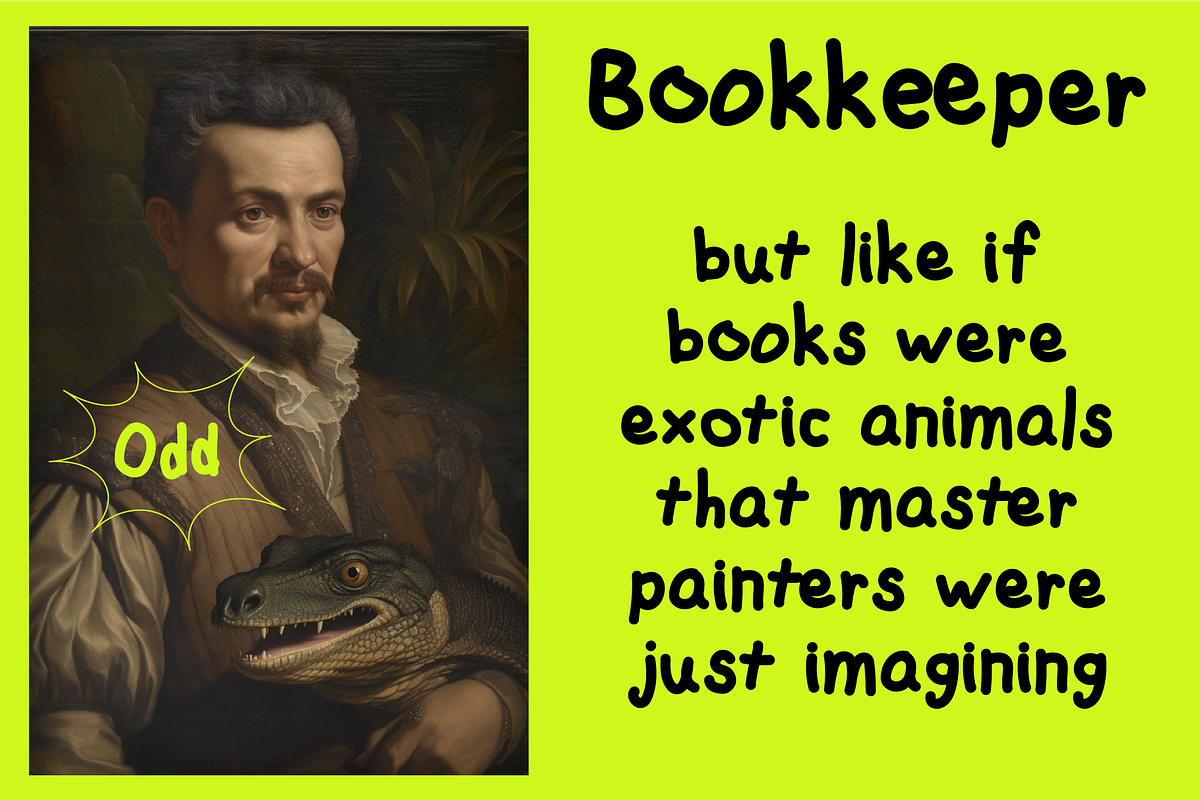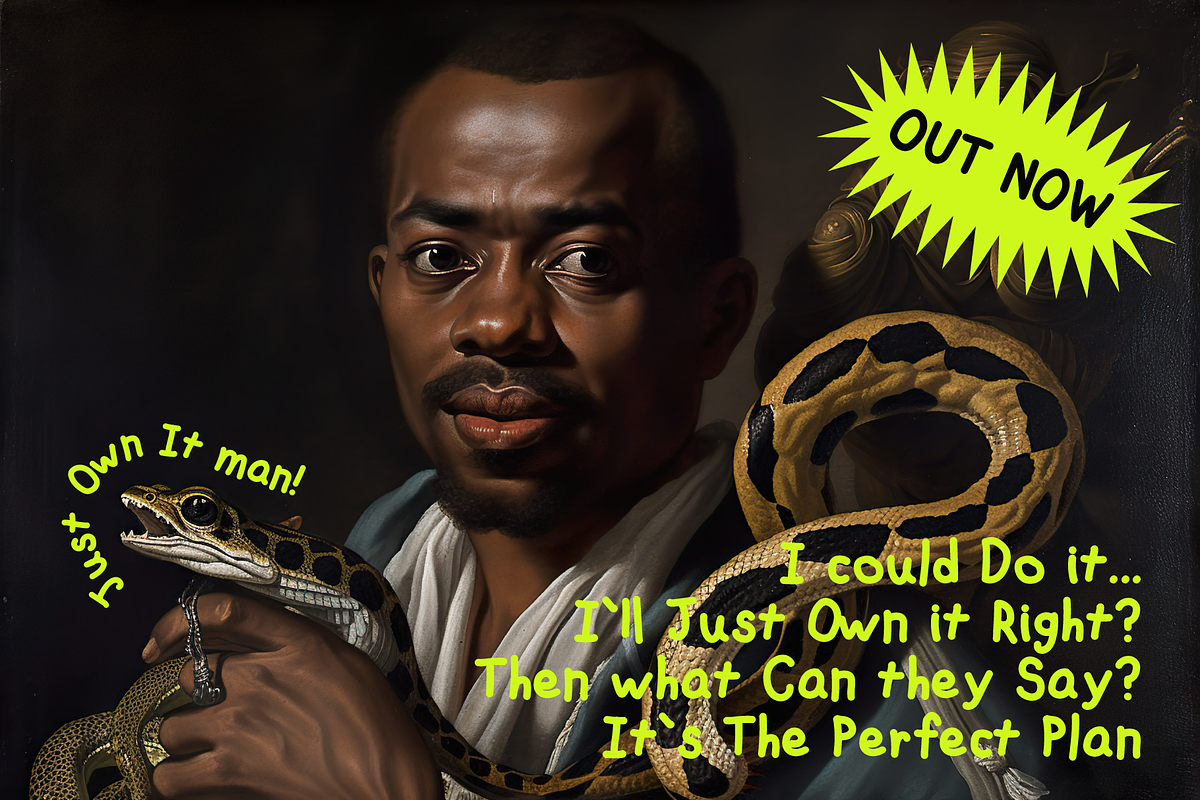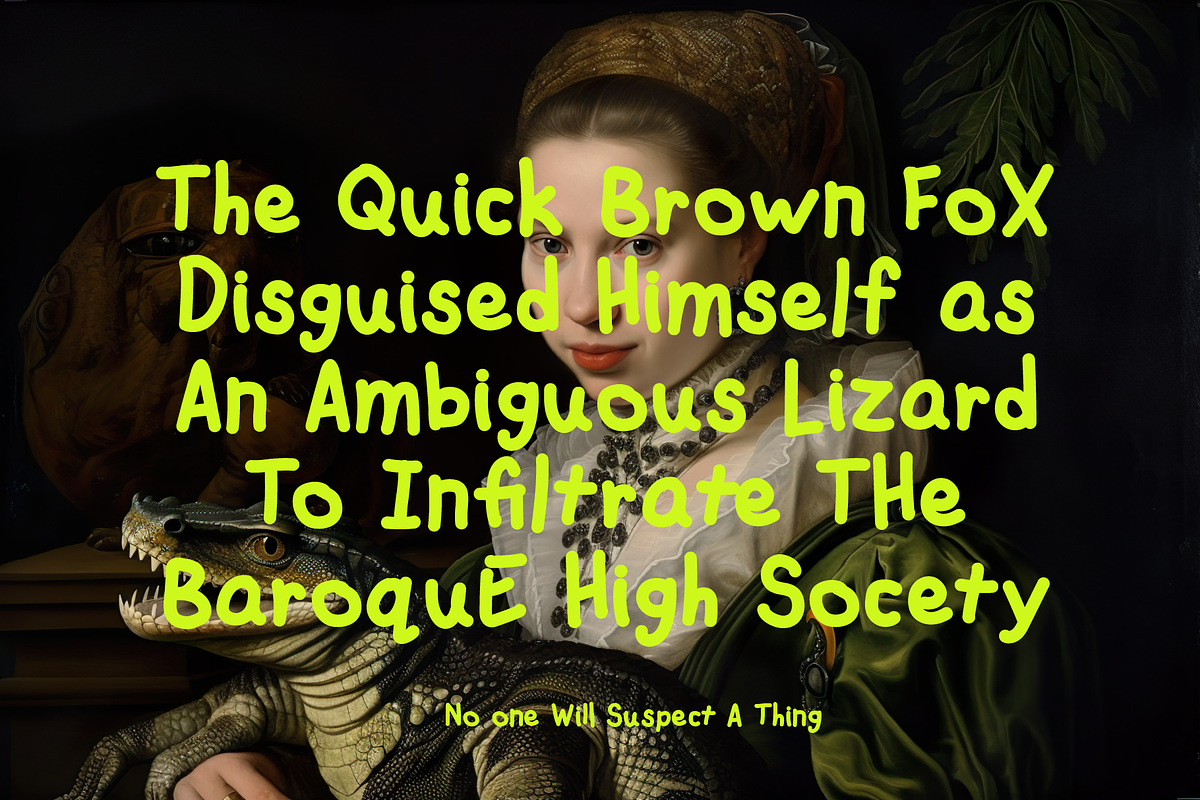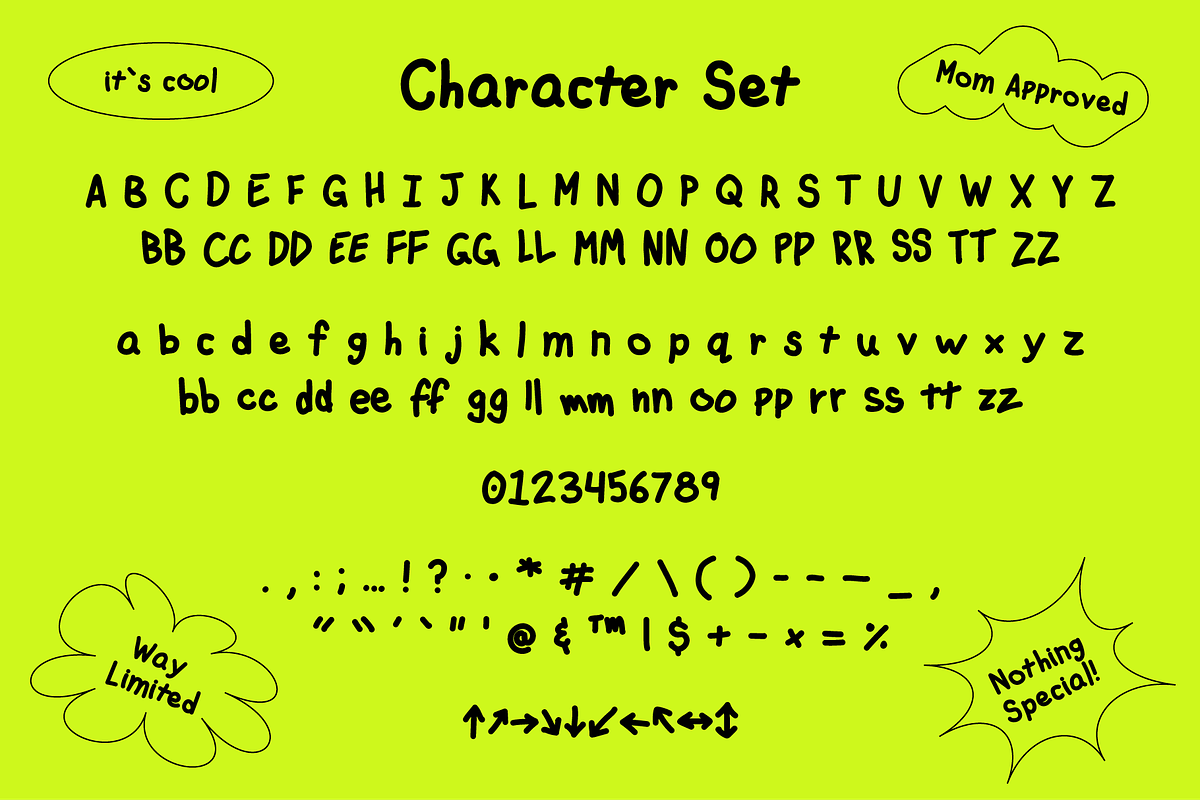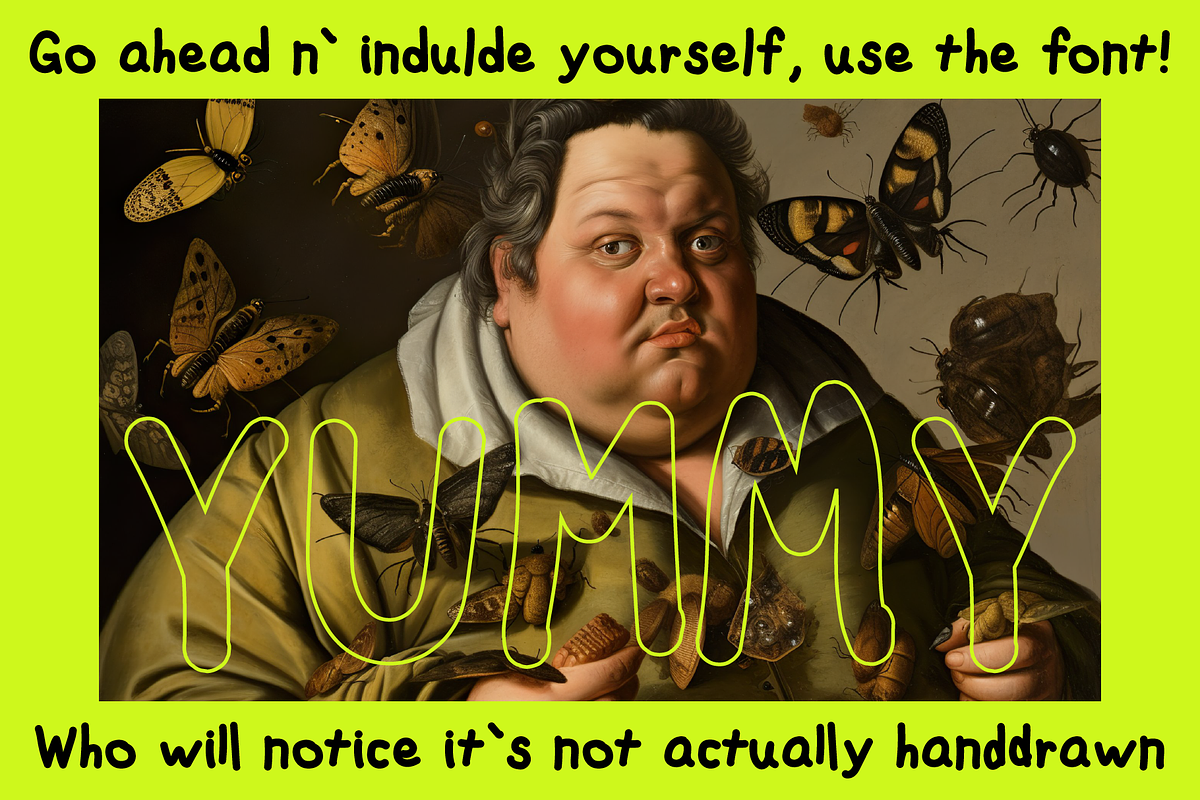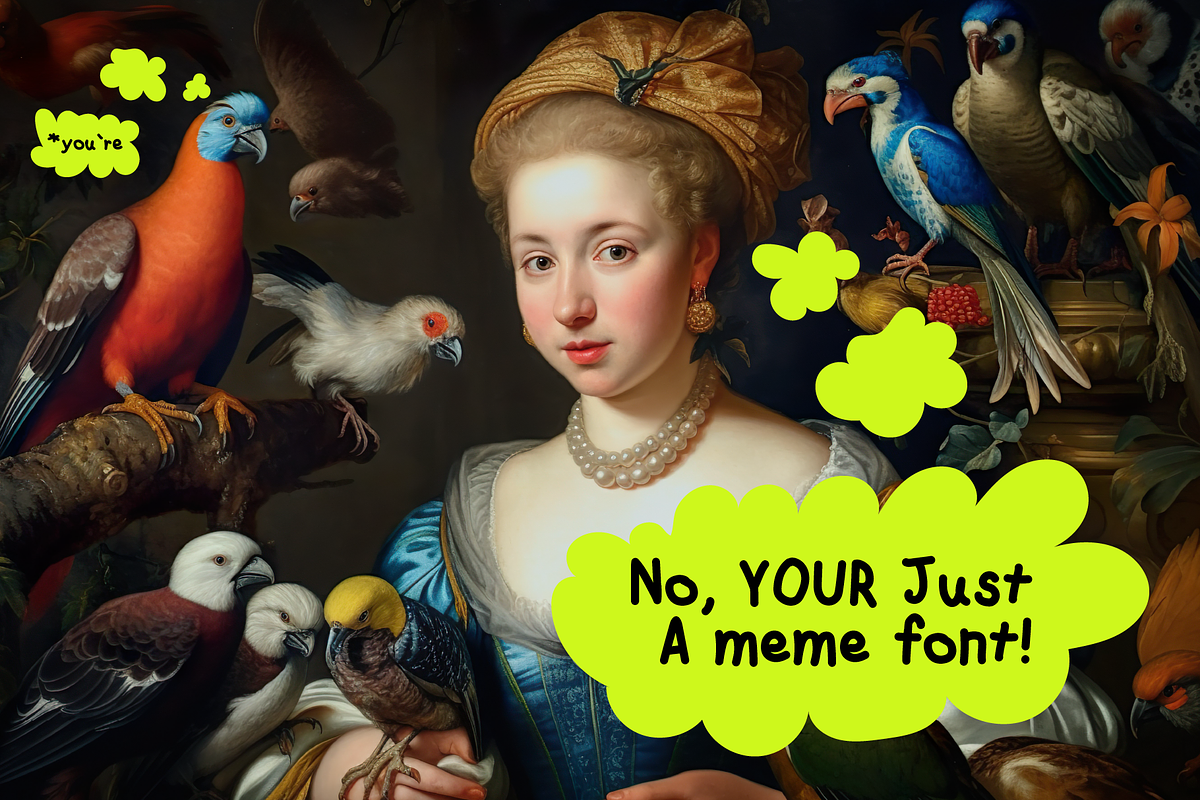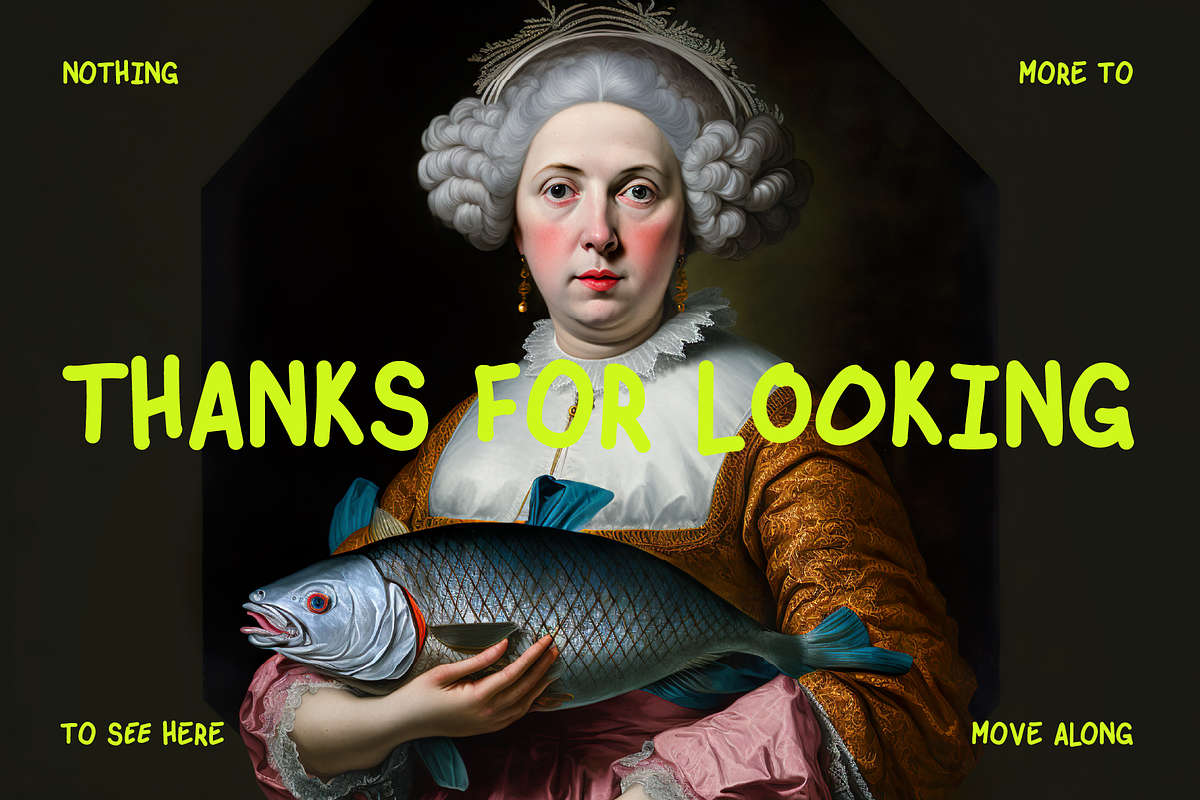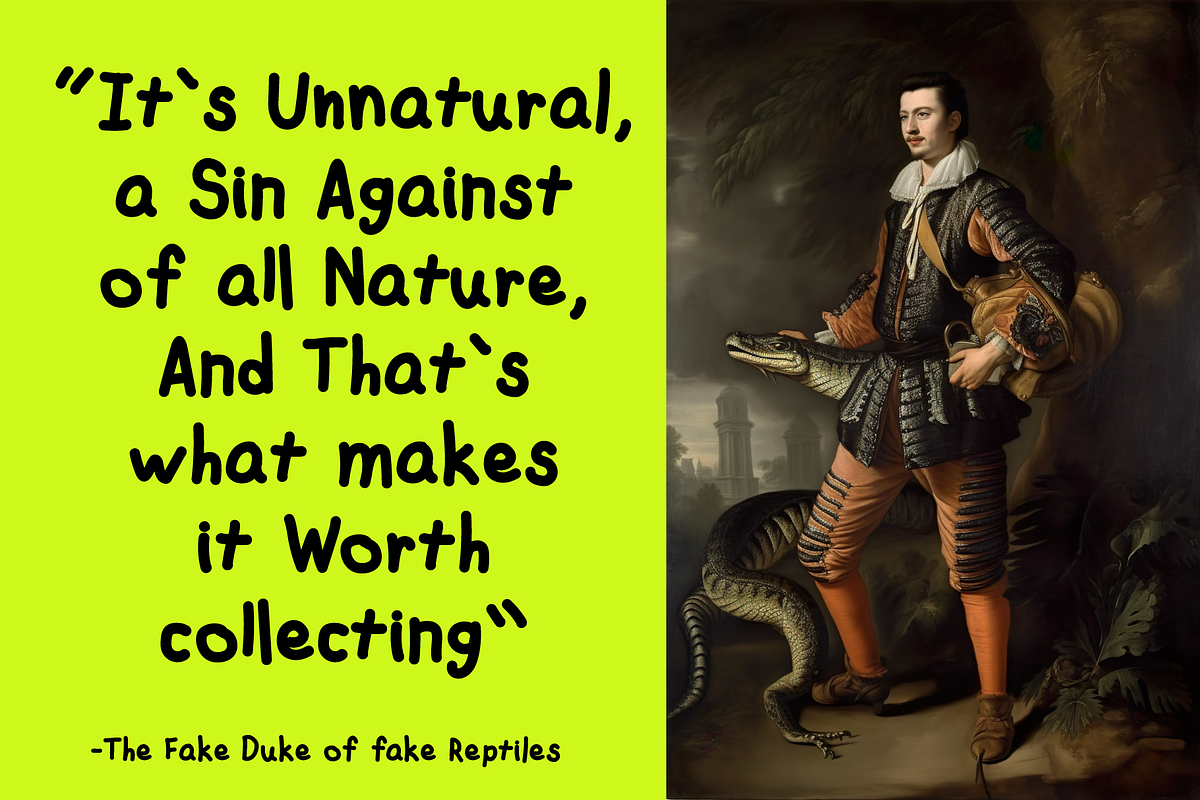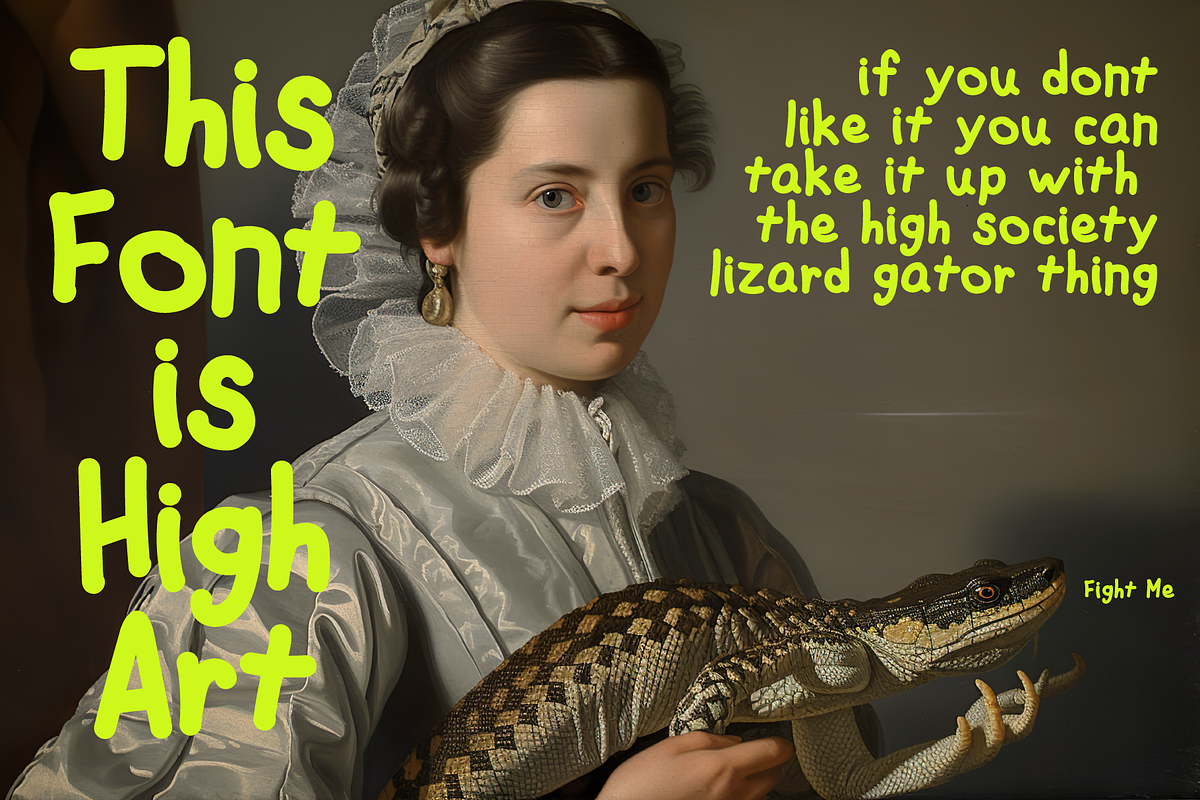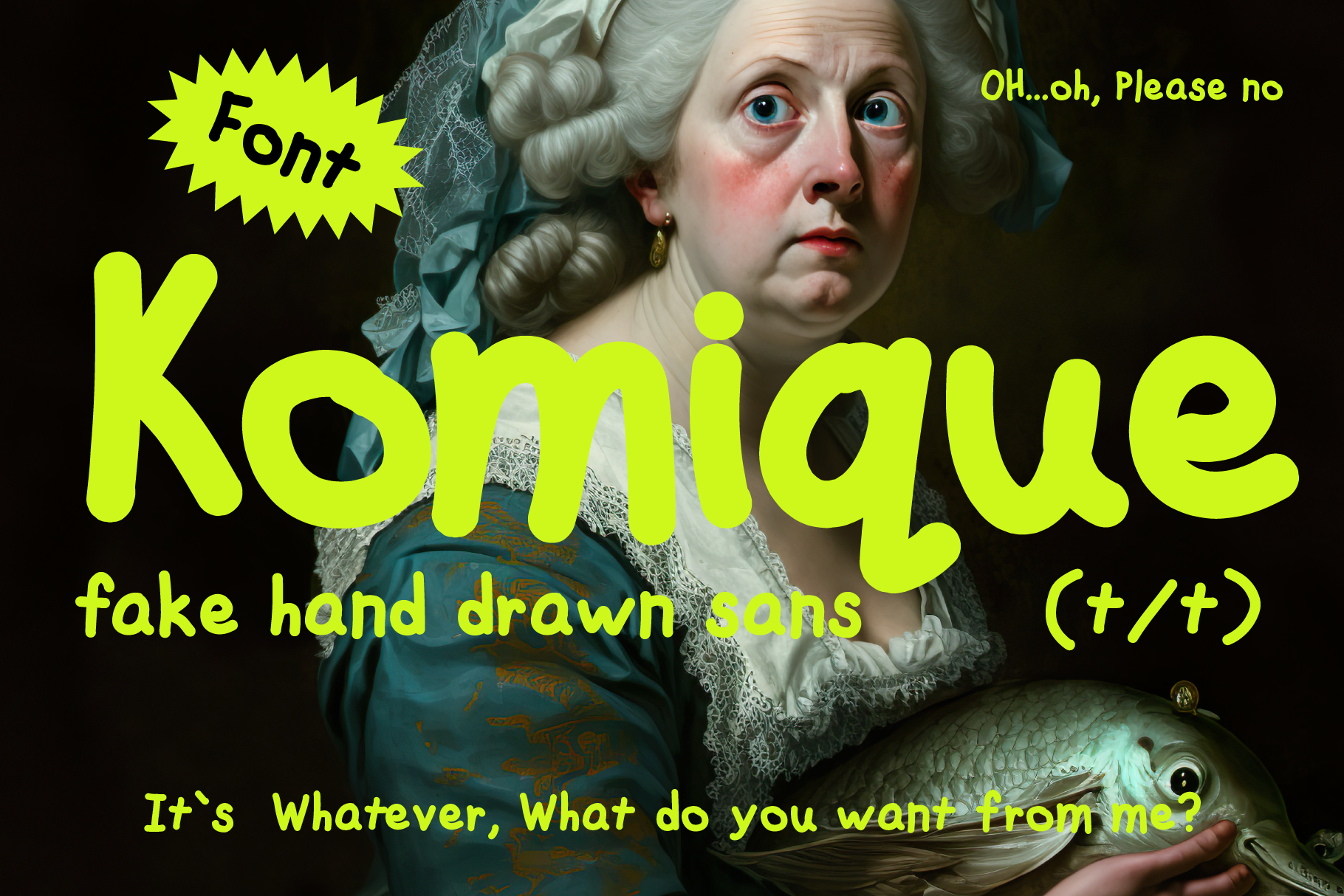
Hand Drawn Font Komique Sans
Komique Sans is like if comic sans had a cool baroque like a joke older brother. This fake hand drawn font tries to take all of the jokey personality of its predecessor and flip it on its head, owning the silliness showing up with all the confidence in the world, and a few new features, Such as contextual alternatives for double letters.
- Upper Case
- Lower Case
- Arrows
- Double Letter Ligatures